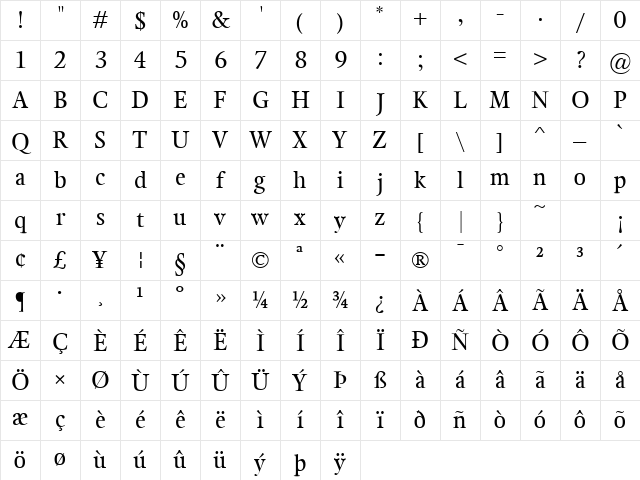
Kalix Regular Free Font
Kalix Regular
Kalix Family
Design Context for Kalix
Kalix is a composed and adaptable typeface that performs quietly and consistently across a wide range of design contexts.